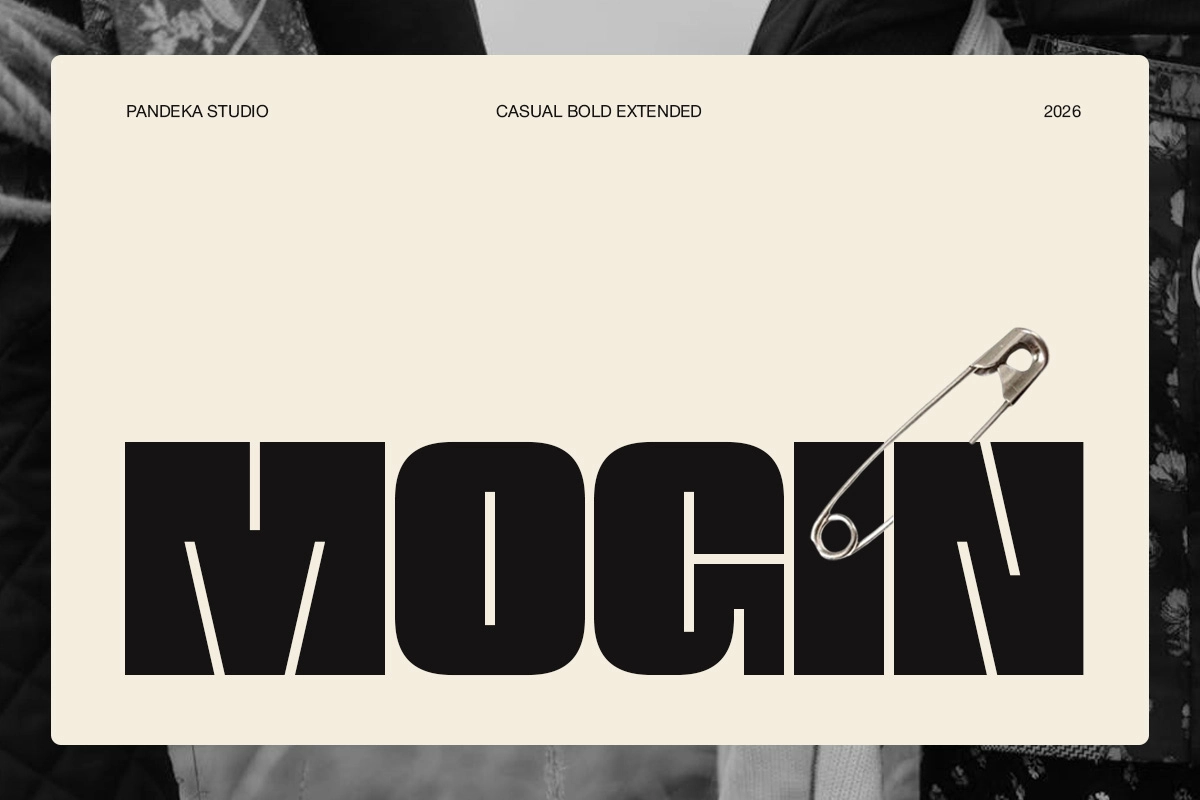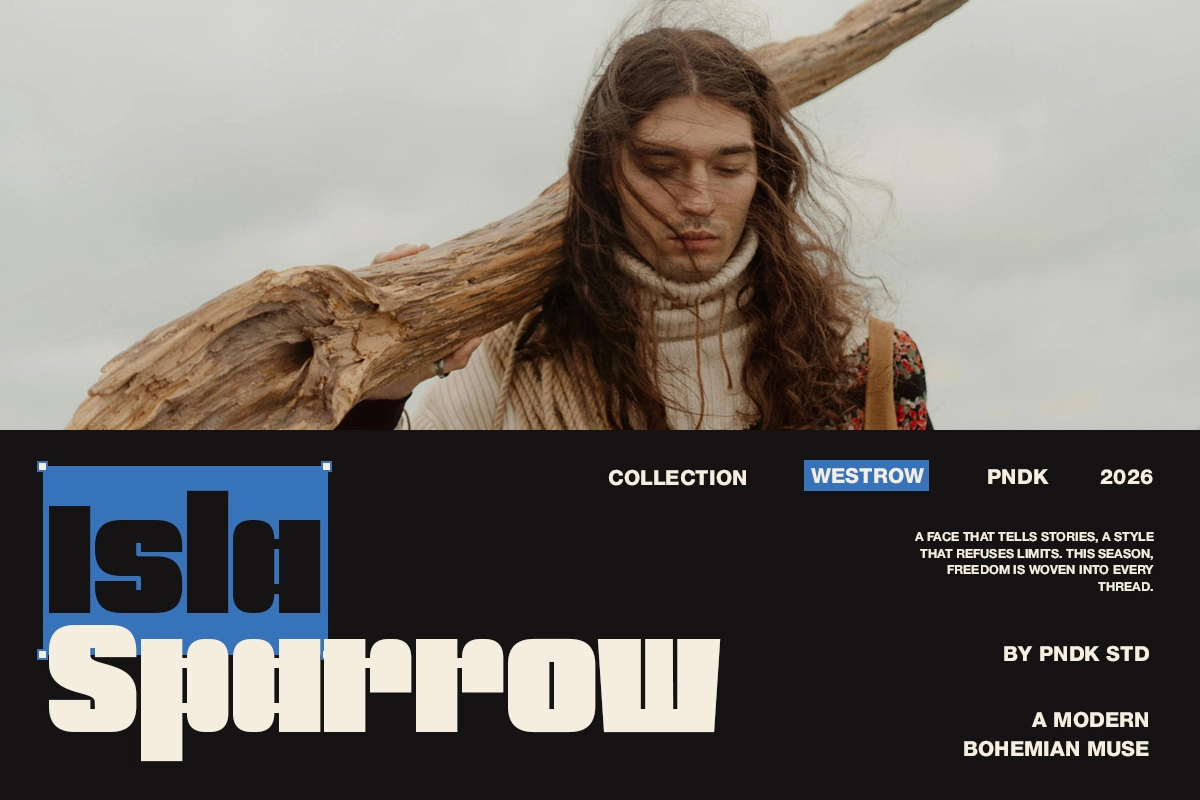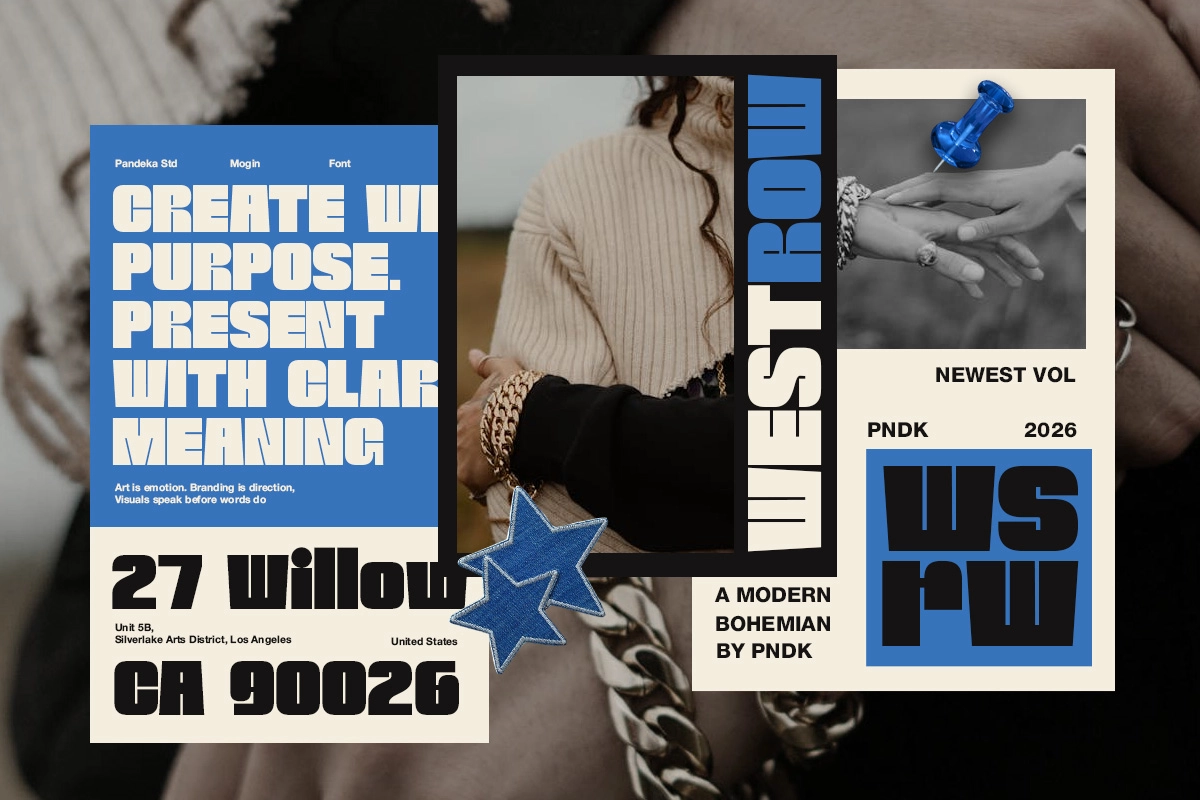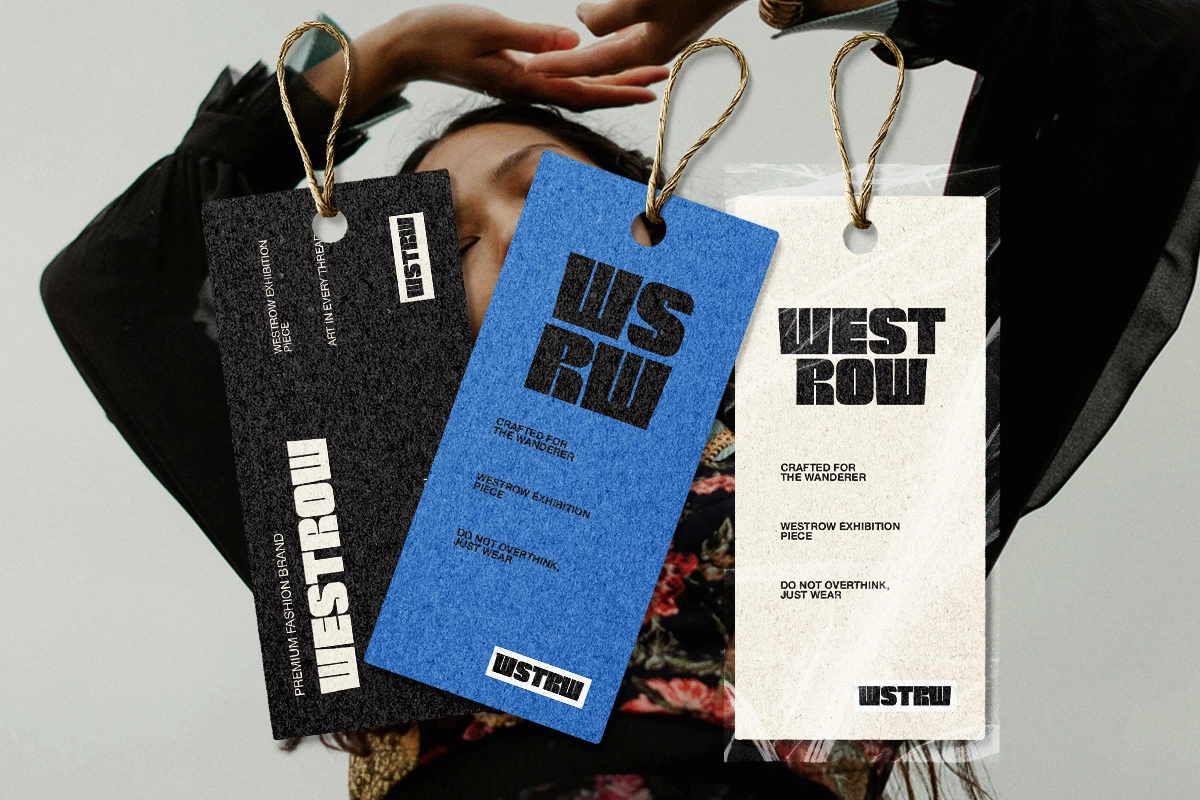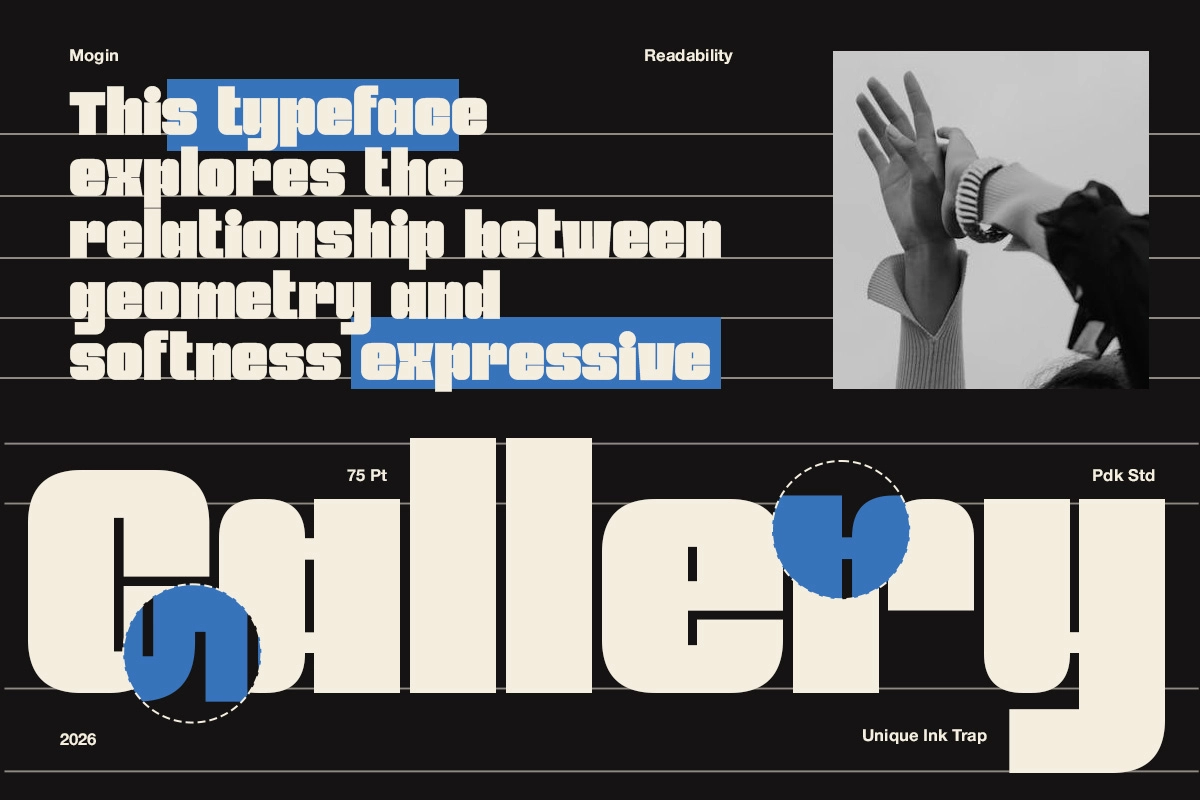
Mogin - Bold Extended Display Font
Mogin
Mogin runs its letterforms wide and extended, packing each stroke into a slab-like block softened by rounded ink traps — a bold extended display font built for headlines that take up space on a page. The casual, slightly blunt rhythm reads closer to a patched denim jacket than a corporate wordmark, equally at home on a magazine masthead or a streetwear tag.
The weight holds up at large sizes without turning heavy, so it works best set short and confident rather than run across paragraphs of body copy. Use it for editorial headlines, poster and flyer titles, streetwear and boutique branding, social quote cards, and merchandise graphics like hang tags and apparel prints.